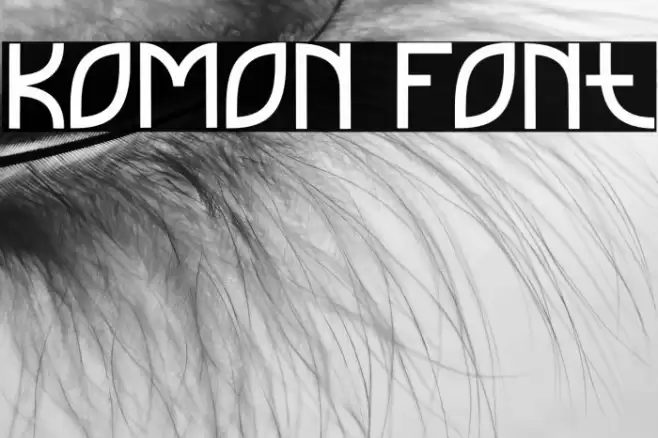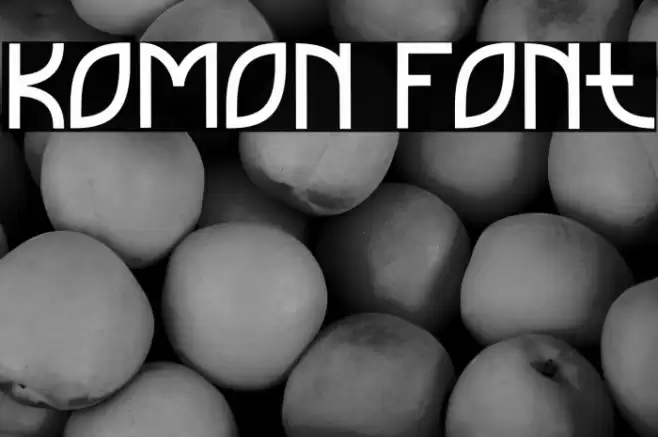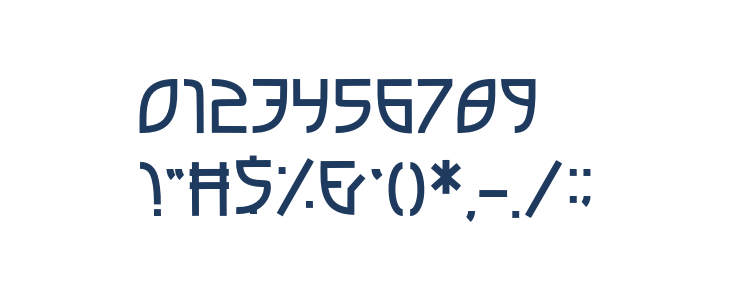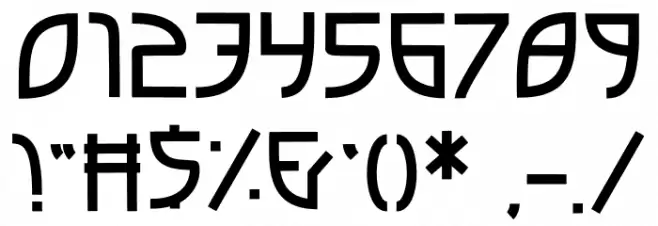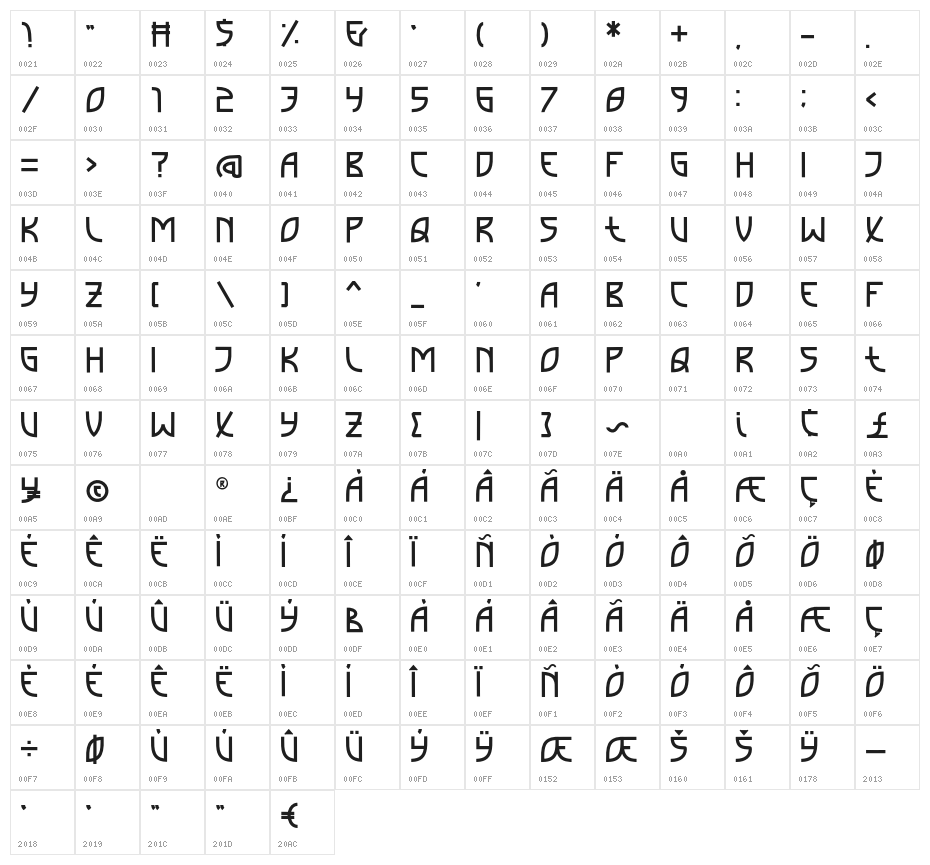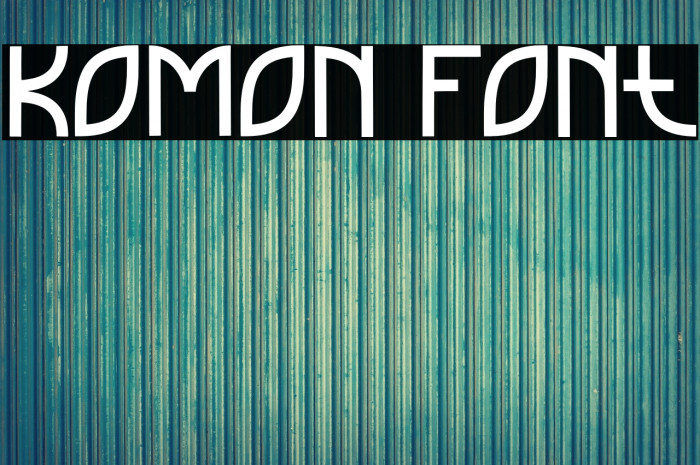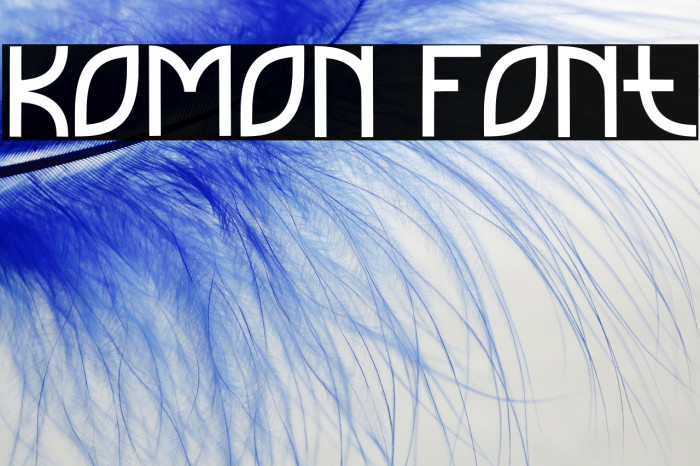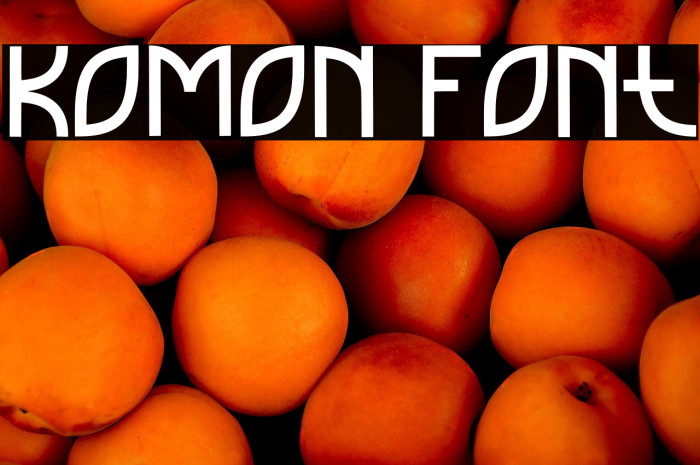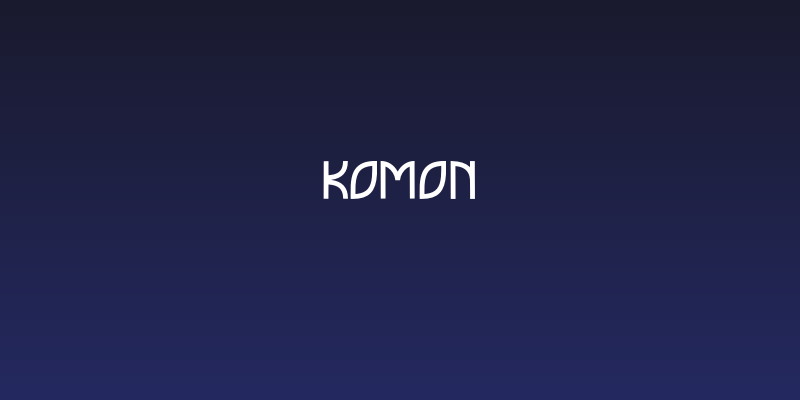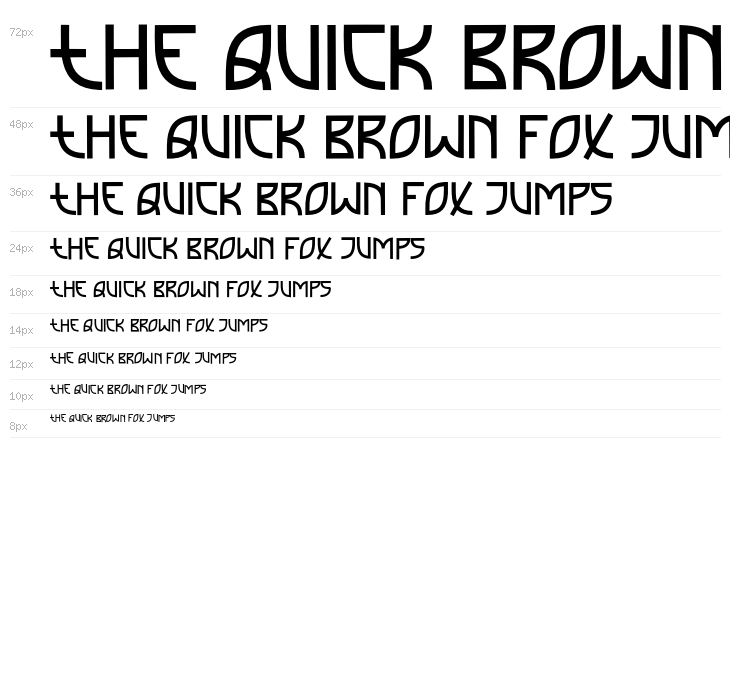
Komon Font
Komon Description
This font features a unique and modern design with a futuristic flair. The characters are composed of bold, geometric shapes with distinct curves and angles, giving it a dynamic and innovative appearance. The uppercase and lowercase letters maintain a consistent style, with a focus on symmetry and balance. The numbers and special characters follow the same design principles, ensuring a cohesive look across all elements. The font's boldness and distinctive style make it ideal for projects that require a strong visual impact.
A bold, geometric font with a futuristic and dynamic style from Regular fonts.